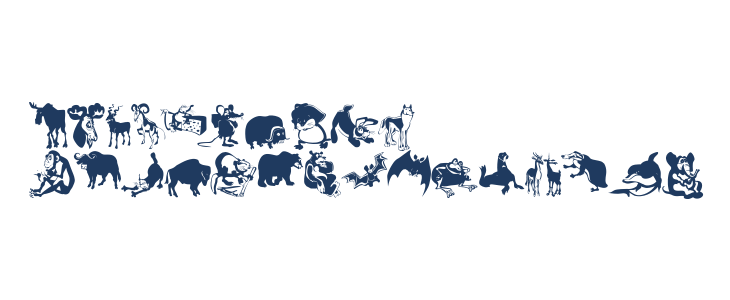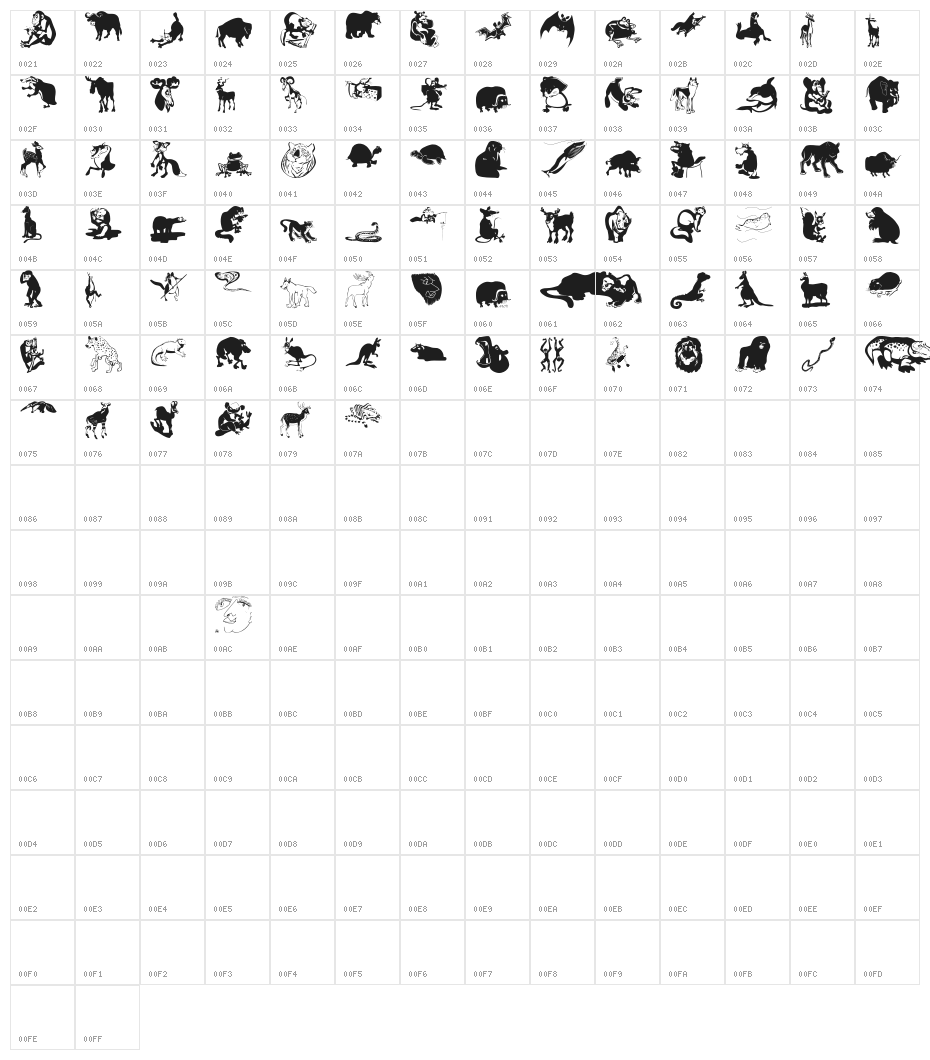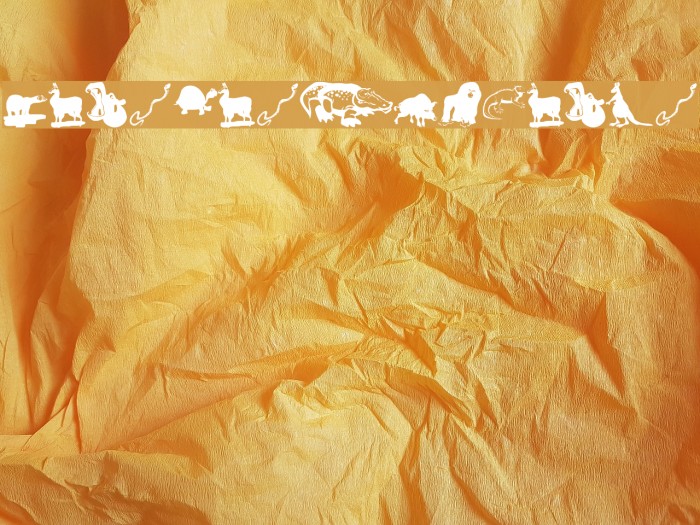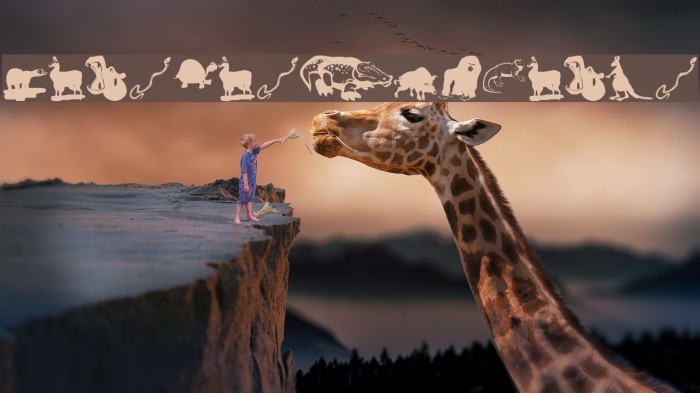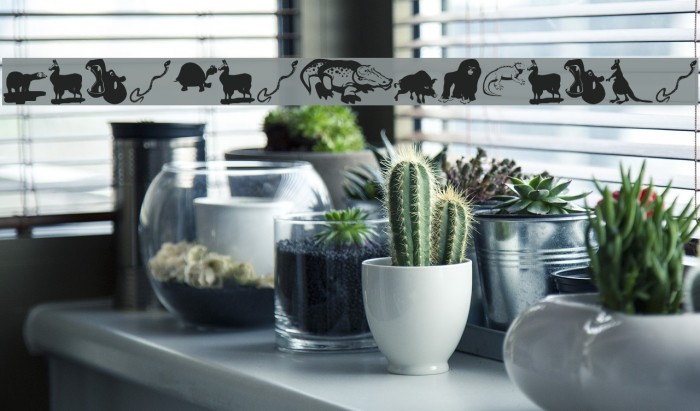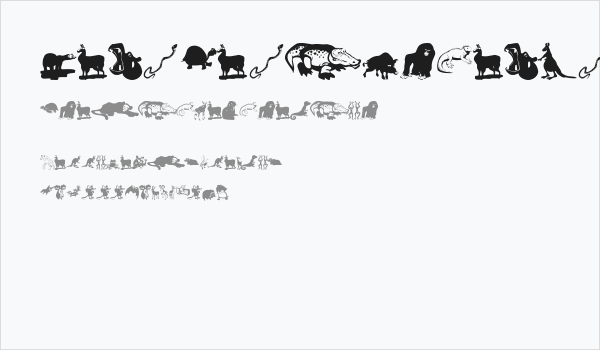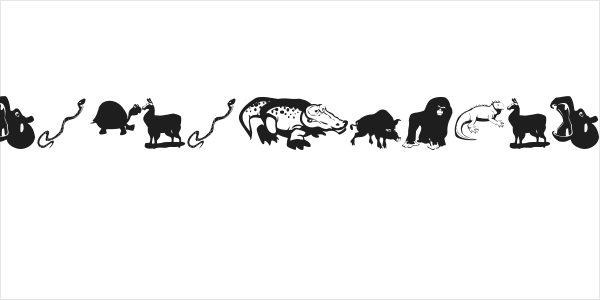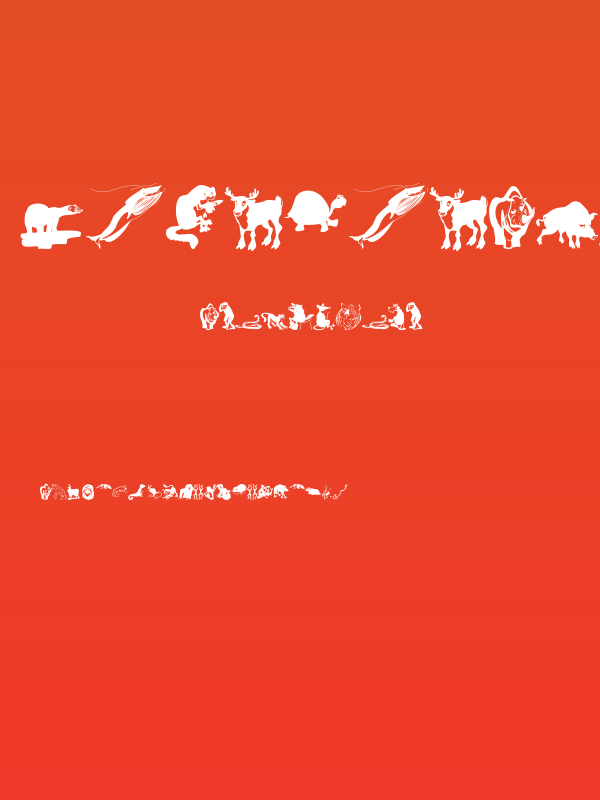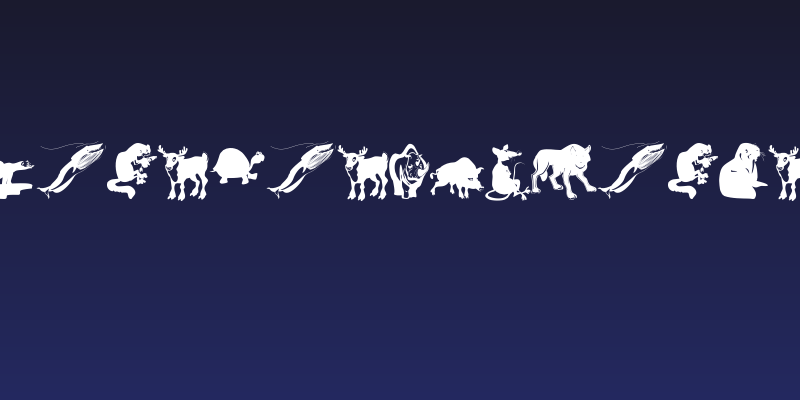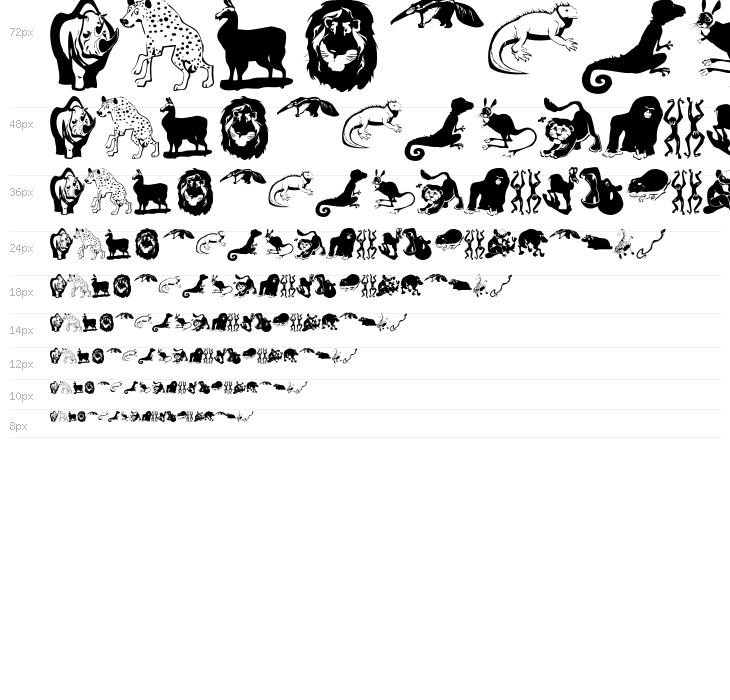
MensBestFriends Font
MensBestFriends Description
A playful, decorative font where each character is represented by a unique, detailed animal illustration in black and white, blending cartoonish and realistic styles with high visual interest.
| Overall Style | Decorative, Playful, Whimsical |
| Use Case | Headlines, Logos, Posters, Themed graphics |
| Proposed Projects | ChildrenΓ’β¬β’s books, educational materials, posters, animal-themed branding, playful invitations. |